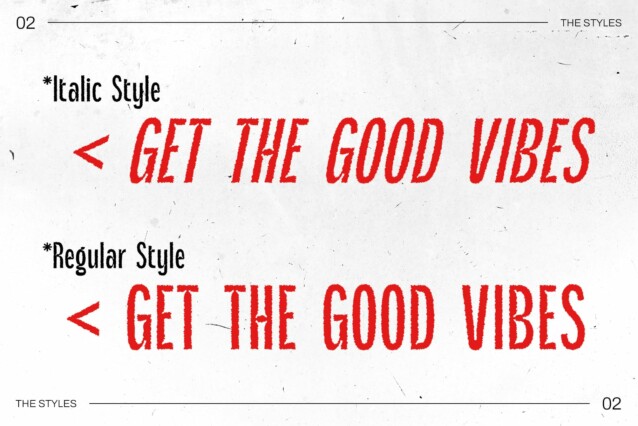
Mareday Rough Font
Mareday Rough Font is a modern sans serif font characterized by its innovative inktrap shapes and condensed form, layered with a distinctive rough texture. This design approach delivers a striking blend of strength and character, ensuring that the font stands out in any design context. The inktrap details enhance readability, allowing ink to pool in specific areas for a clean and professional look, perfect for today’s fast-paced visual landscape.